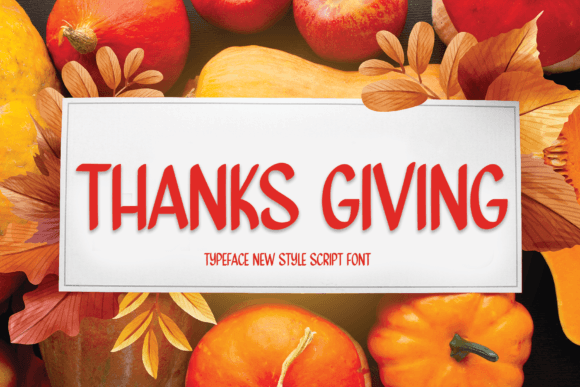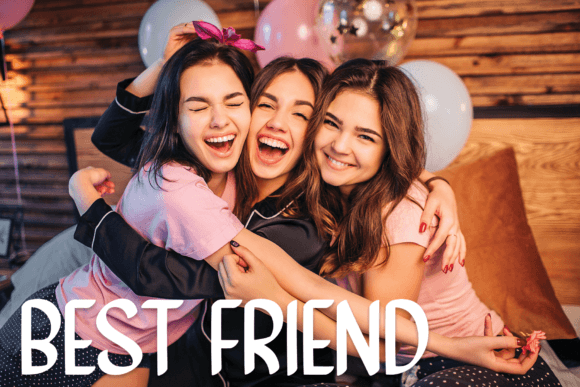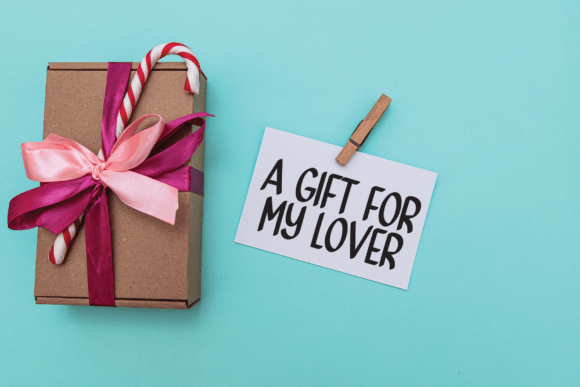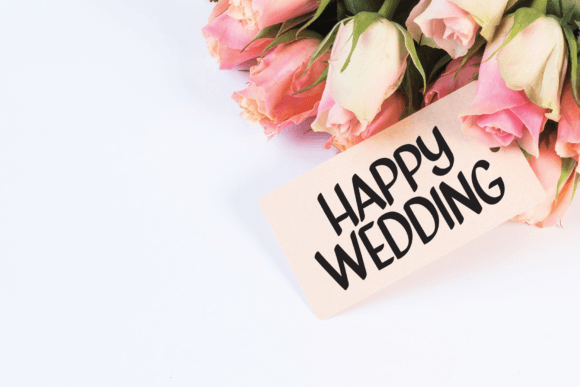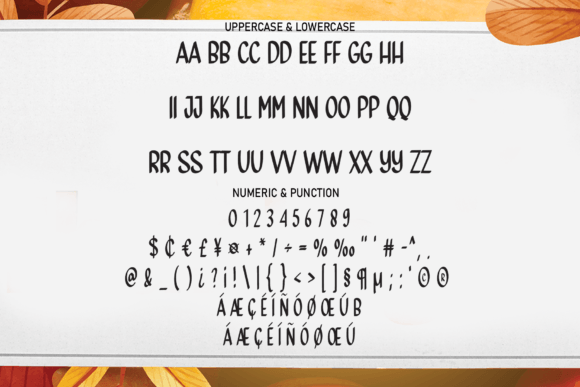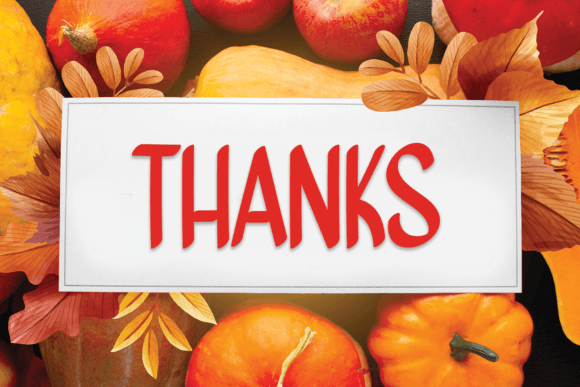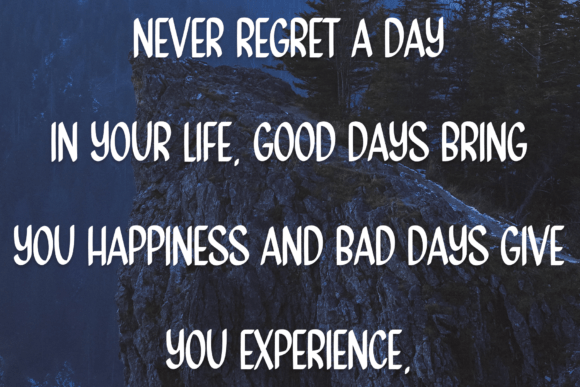
Thanks Giving Font
About Thanks Giving Font
Thanks Giving Font is a fun handwritten script that combines playfulness with friendly energy. With its smooth strokes and casual flow, this font brings charm to both personal and professional design projects. Because of its versatile style, Thanks Giving Font is perfect for crafts, invitations, logos, and digital creations.
A Friendly Handwritten Typeface with Personality
Handwritten fonts often add a warm and authentic touch, and Thanks Giving Font delivers exactly that. Its playful strokes make text approachable while maintaining a polished look. Moreover, it adapts well to a variety of creative ideas, ensuring readability without losing character. As a result, this font is ideal for designers seeking a balance between style and simplicity.
Perfect Typeface for Crafts and Greeting Cards
If you love designing greeting cards or handmade crafts, Thanks Giving Font will become a favorite tool. For example, it can turn a simple birthday card into a heartfelt keepsake. In addition, it works well for invitations, seasonal notes, and thank-you cards. Because of its lively charm, every message feels unique and personal.
A Script Typeface for Logos and Branding
Businesses and creatives can use Thanks Giving Font to create approachable branding. Logos, packaging, and labels gain a friendly feel when designed with this script. Furthermore, on social media, it makes posts and banners look more engaging and fun. When paired with clean sans serif fonts, it creates a modern balance that strengthens brand identity.
Flexible Across Print and Digital Projects
One of the greatest strengths of Thanks Giving Font is its flexibility across mediums. In print, it shines on posters, brochures, merchandise, and packaging. Digitally, it enhances blogs, websites, presentations, and creative graphics. Since it scales well across different sizes, it remains a dependable option for both headlines and smaller text.